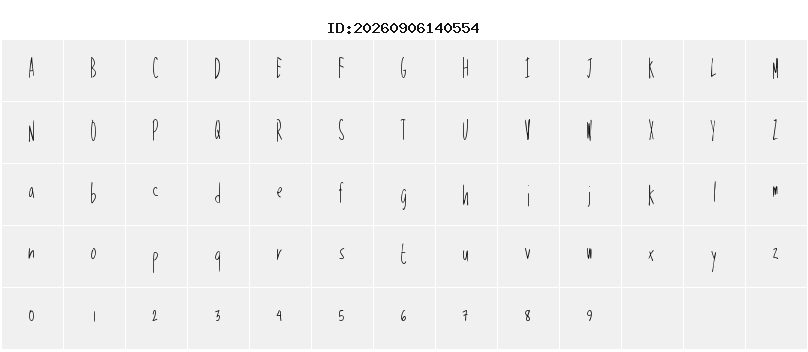
TalkingLouder Preview
• Font Name: TalkingLouder
• Font ID: TalkingLouder:Version 1.00
• Full Font Name: TalkingLouder
• Version: Version 1.00 August 12, 2014, initial release
• PostScript Name: TalkingLouder
• Character Count: 72
• Designer: Xerographer Fonts Max Infeld
• Manufacturer: Xerographer Fonts
• Description: Made at Xerographer Studios in Redding,CA
About TalkingLouder.ttf
TalkingLouder.ttf is a modern, elegant sans-serif font designed for ultimate readability and visual harmony. Perfect for branding, headlines, web design, and print materials.